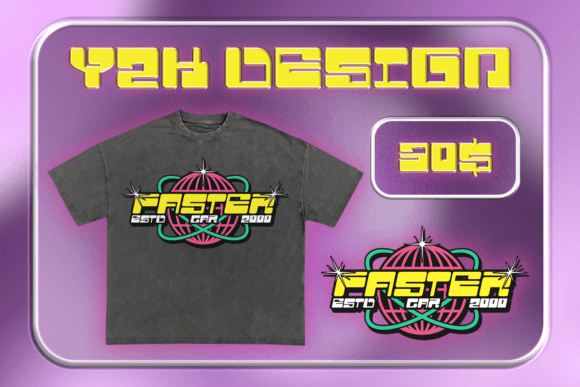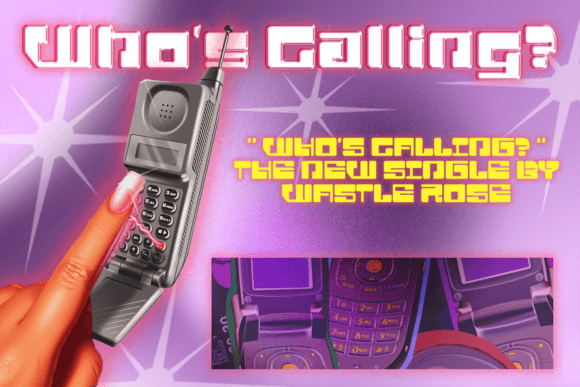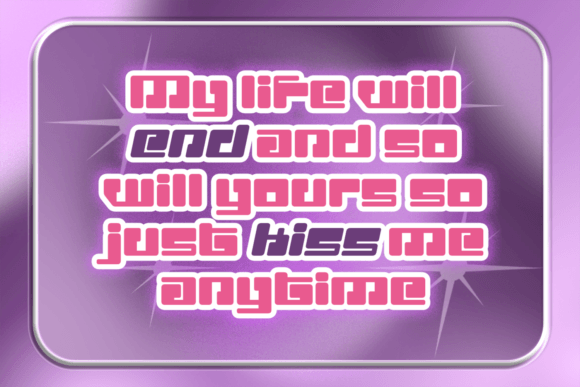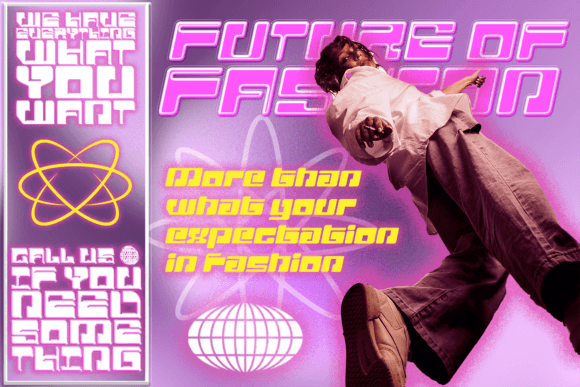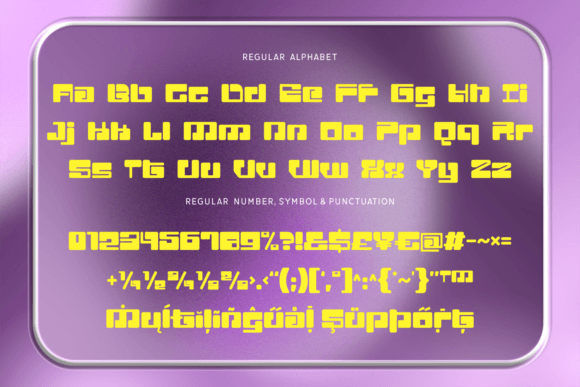
Introduction to Gateway Font
Gateway is a Y2K-inspired font that captures the essence of the turn of the millennium with its vibrant and playful design.
Reminiscent of the technological advancements and futuristic aesthetics of the early 2000s, this font brings a nostalgic and energetic vibe to any design project Gateway features bold and geometric letterforms with sleek lines and exaggerated curves.
Key Features of Gateway Font